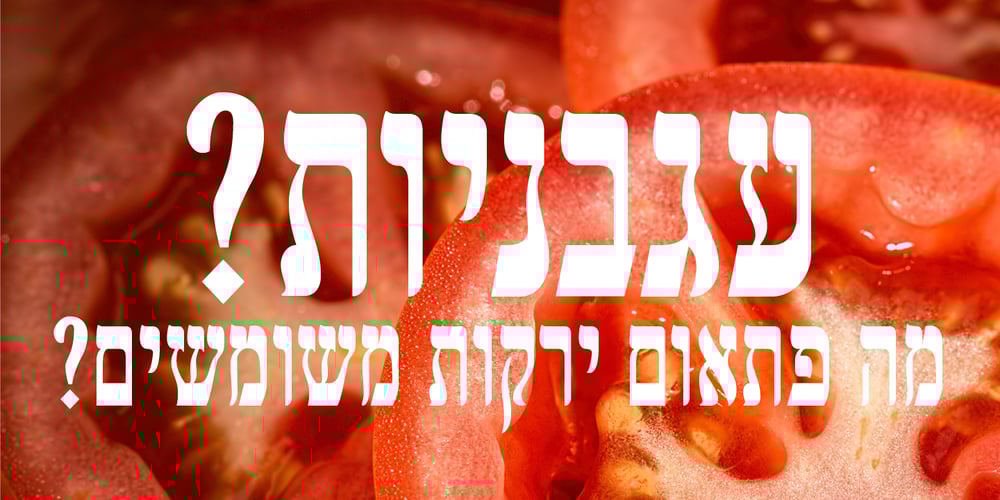
Etzada MF Font Family was designed by Zvika Rosenberg and published by Masterfont. Etzada MF contains 2 styles and family package options. Unique elegant font with condensed biblical scent.OpenType ProExcellent support for Niqqud (Vowels). All marks are programmed to fit each glyph’s shape and width. OpenType Pro includes new advanced features like Dagesh Hazak, ShevaNa, Qamatz Katan, Holam Haser and wide letters.Best used with Adobe InDesign CC that support complex Hebrew text.Please check these advanced features in this link:https://tinyurl.com/ybgdsxme